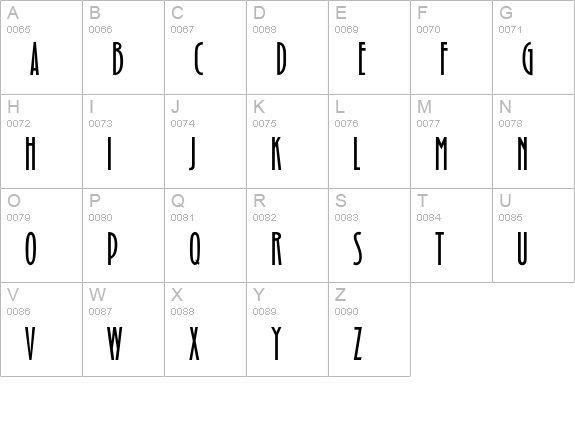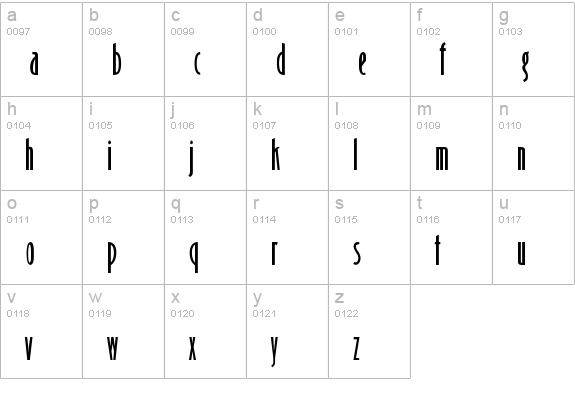
OPTIBinnerGothic Font Details
OPTIBinnerGothic is a modern and stylish font that exudes a sense of sophistication and elegance. Its clean lines and sharp edges make it perfect for a wide range of design projects, from branding to editorial layouts. The font's sleek and minimalist design adds a touch of professionalism to any project, making it a versatile choice for both print and digital applications. Best of all, OPTIBinnerGothic is available for free download at FontsMarket.com. This means that you can easily access this high-quality font without any cost, making it a valuable addition to your font library. Whether you are a designer, student, or hobbyist, OPTIBinnerGothic offers a sleek and stylish option for all your typographic needs. Download it today and elevate your designs with this stunning font.